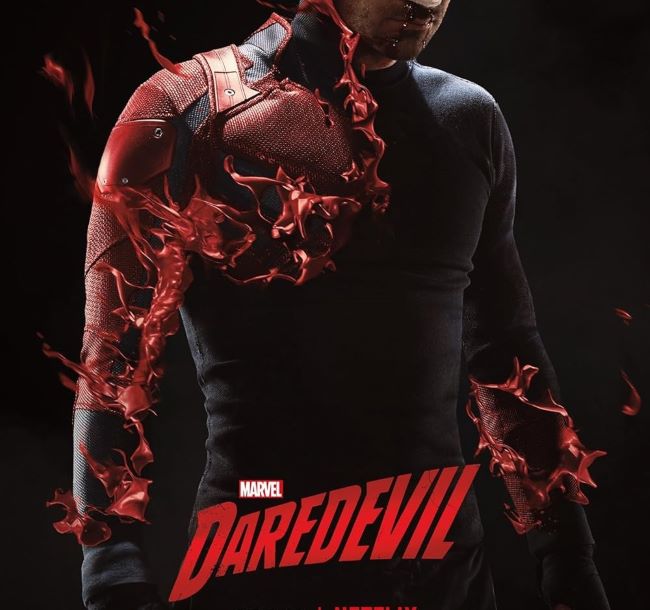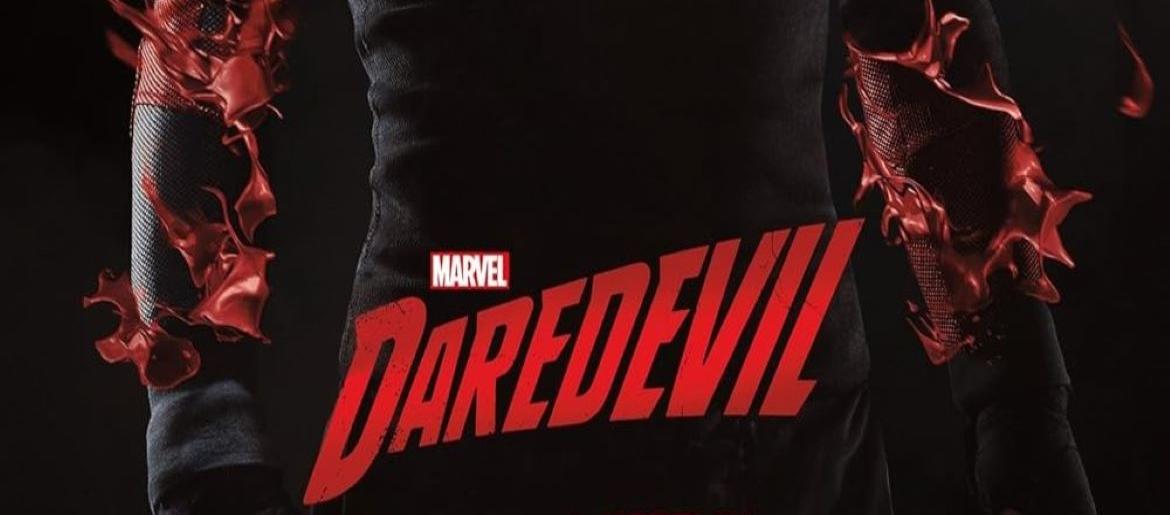
Daredevil Font
The Daredevil Font perfectly captures the dual life of Matt Murdock — part disciplined attorney, part relentless vigilante. Its sharp, refined style blends a sense of legal professionalism with gritty urban energy, reflecting the character’s constant push and pull between justice inside the courtroom and justice served on the streets. It’s a sleek, modern typeface that instantly channels the tone of Marvel’s darker, grounded storytelling.
The Daredevil Font, designed by
Iconian Fonts, features clean sans-serif lettering enhanced with subtle angular cuts. These sharp details add a sense of danger and intensity without sacrificing clarity. Its balanced weight and precise spacing echo Matt Murdock’s internal struggle — the careful discipline of a lawyer contrasted with the razor-sharp instincts of a masked hero.
About Daredevil
Daredevil is a Marvel television series released in 2015, starring Charlie Cox as Matt Murdock, a blind lawyer who fights crime by night as the masked vigilante Daredevil. The series also features Deborah Ann Woll, Elden Henson, Vincent D’Onofrio, and Rosario Dawson. Known for its darker tone, grounded storytelling, and intense fight choreography, the show explores Matt’s struggle to balance justice, morality, and the violent reality of Hell’s Kitchen. Its gritty aesthetic, complex characters, and cinematic style helped establish it as one of the most critically praised Marvel TV projects.